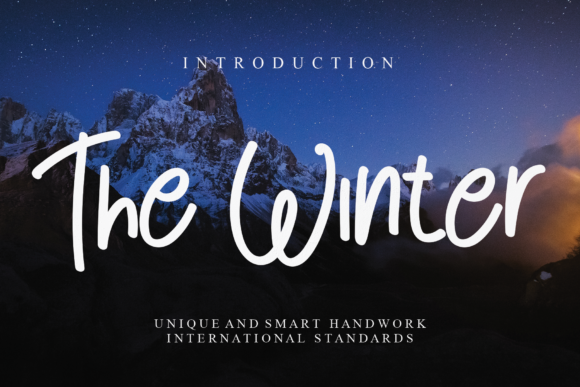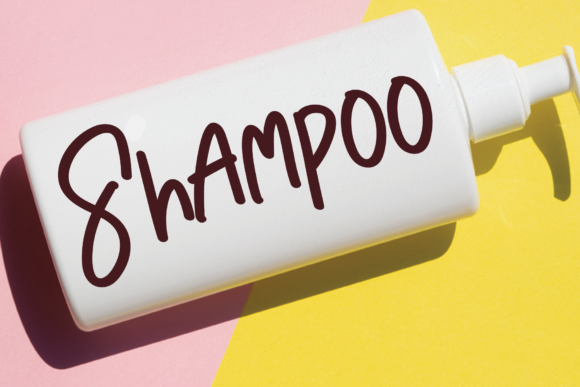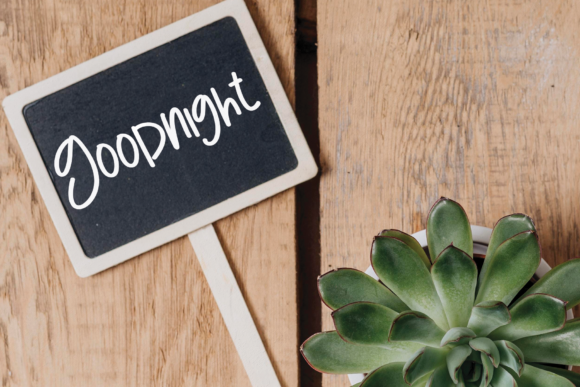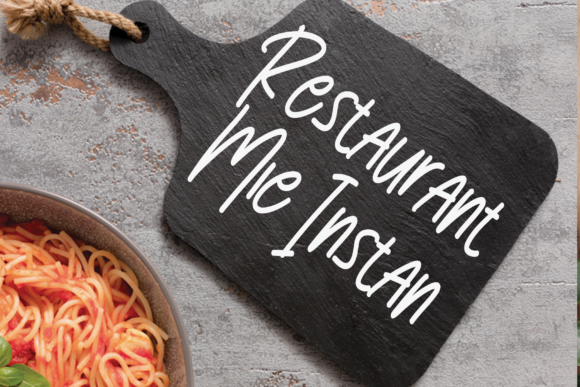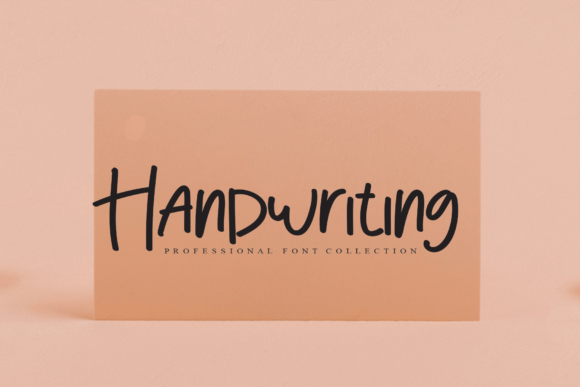
The Winter Font
About The Winter Font
The winter is a charming and stylish handwritten font designed with a nice, modern touch! Add it to each of your creative ideas that need an authentic look!